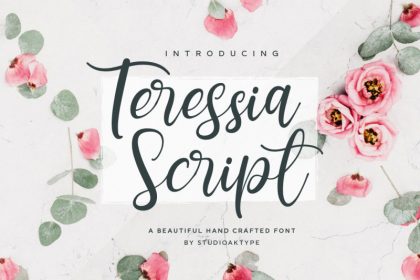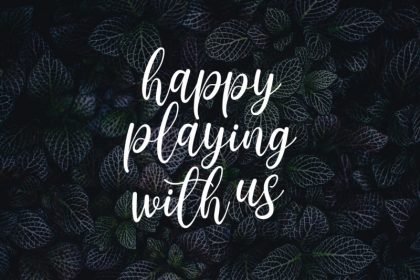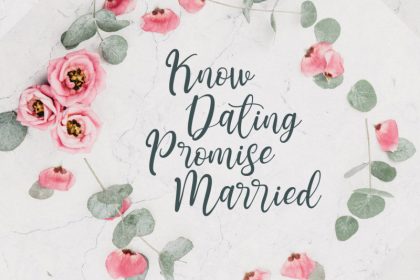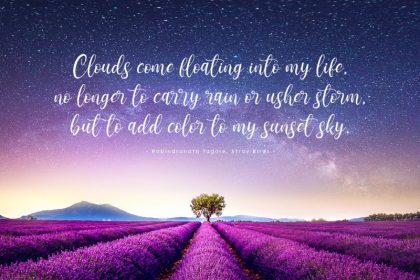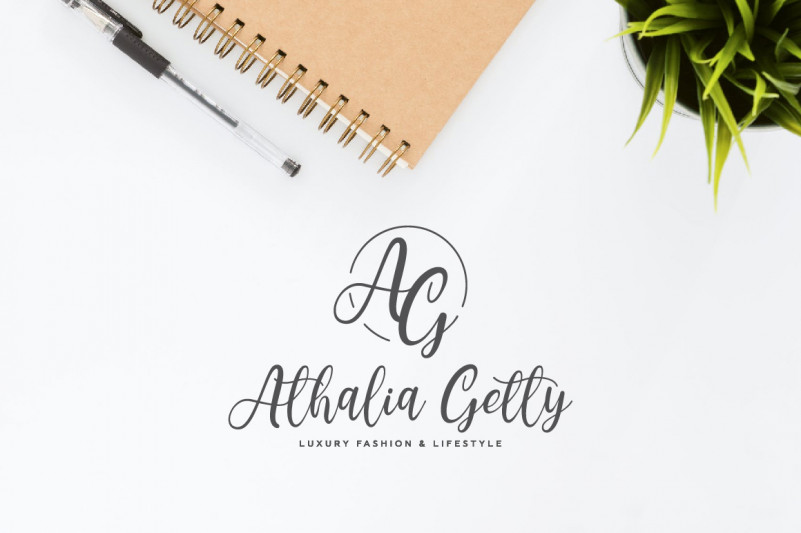
Teressia Script Font
hi ? introduce our new Hand Crafted Font
He was named Teressia Script
Teressia is a beautiful handwritten font with natural shades, this will give a touch of beautiful flow to any design idea! it is perfect for designing your own brand and for other designs, these letters look perfect on all printing techniques, foil emboss, embroidery, and others.
Teressia Script has a full set of
– Uppercase
– Lowercase
– Ligature
– Numbers, Punctuation & Multilingual Symbols